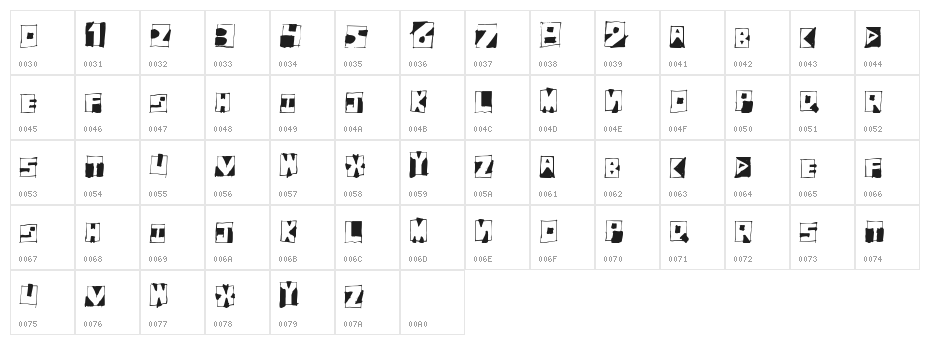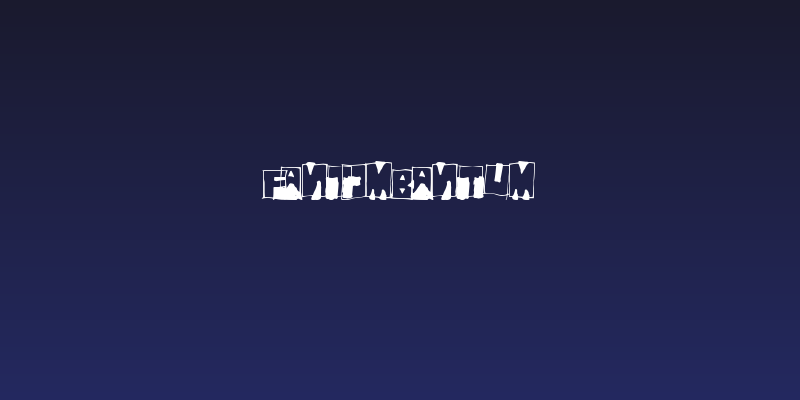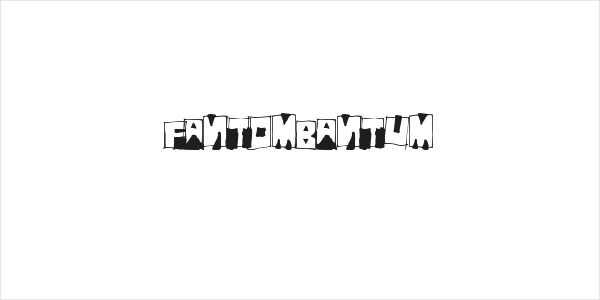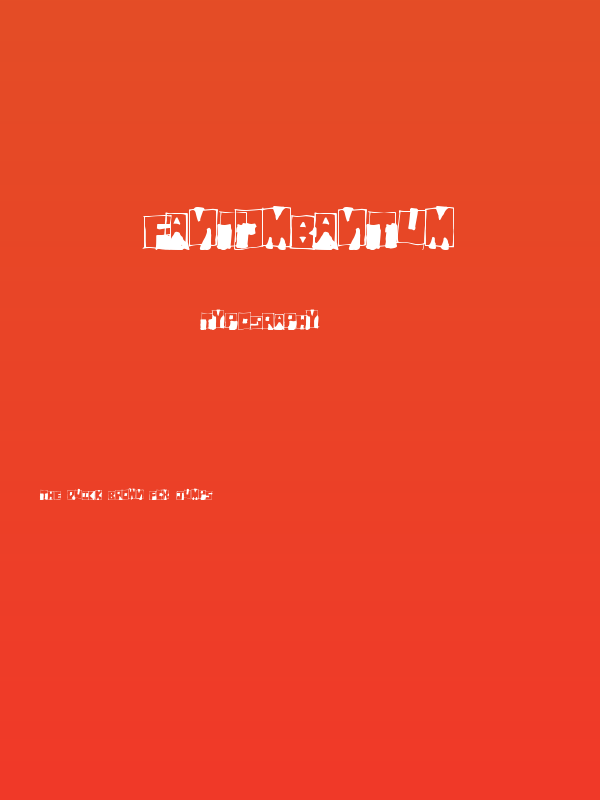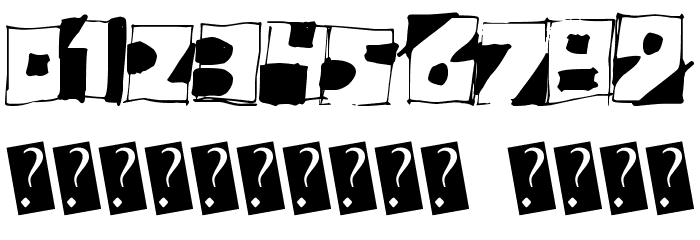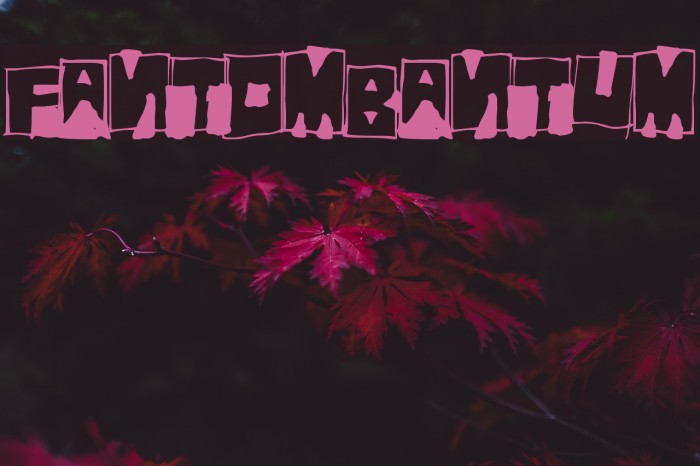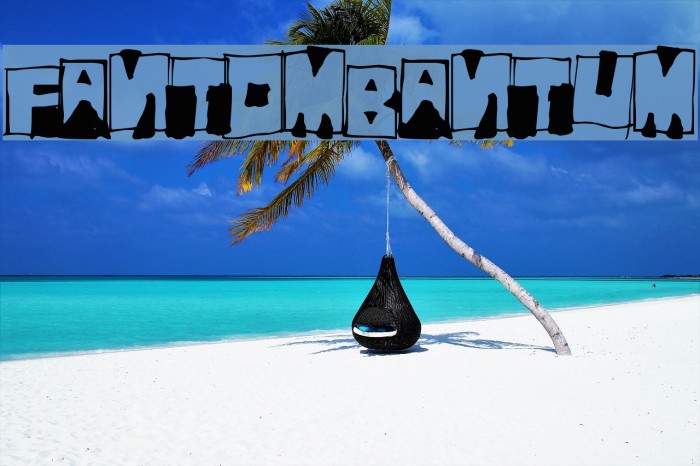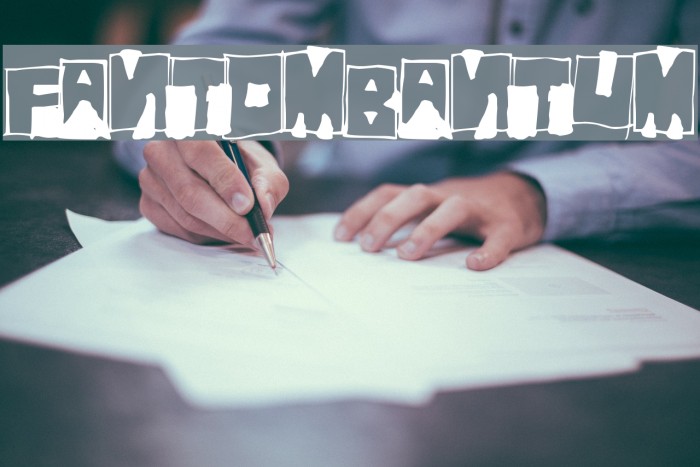
FantomBantum Font
FantomBantum Description
This font features a bold, graffiti-inspired style with a strong urban influence. The characters are enclosed in irregular, box-like shapes, giving them a dynamic and edgy appearance. The letters are heavily stylized with sharp angles and thick strokes, creating a sense of movement and energy. The font has a hand-drawn, artistic quality, making it stand out with its unique and unconventional design. The numbers and special characters follow the same aesthetic, maintaining consistency throughout the set. This font is ideal for projects that require a bold and impactful visual statement.
| Overall Style | Urban, Graffiti, Artistic |
| Proposed Projects | Perfect for street art designs, music album covers, urban-themed posters, and edgy branding projects. |